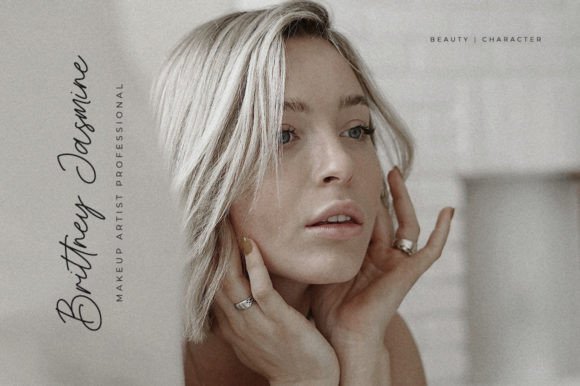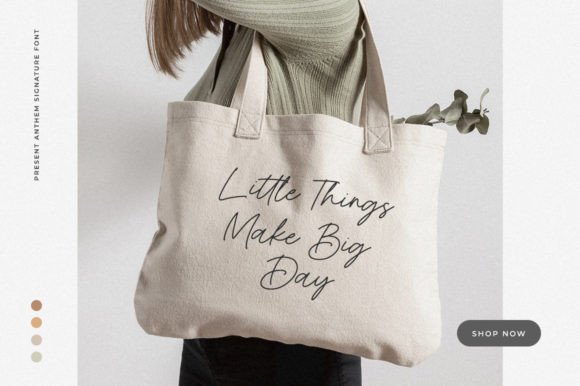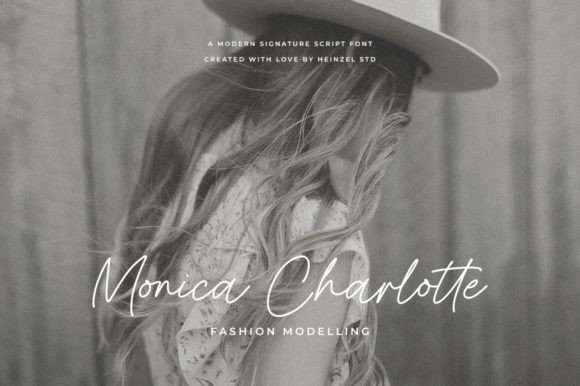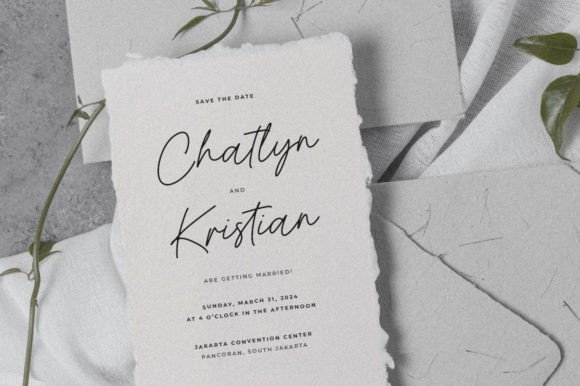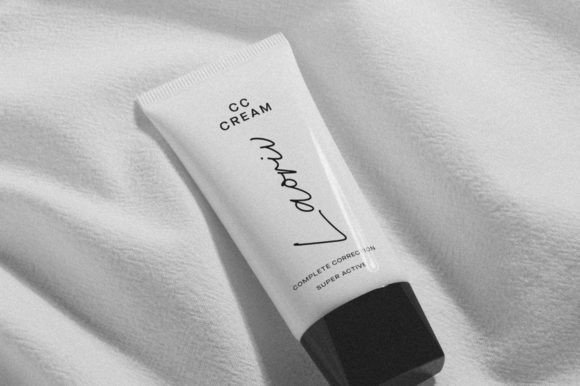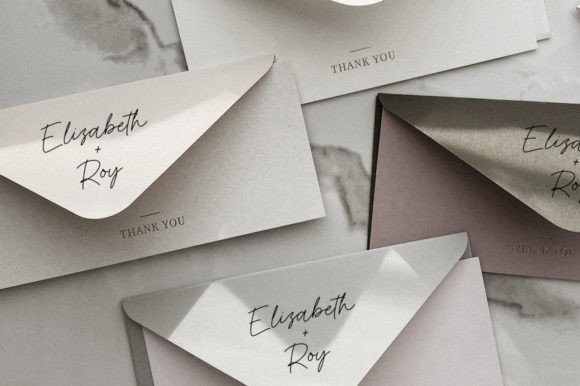
Introduction to Present Anthem Font
Present Anthem is a modern handwritten script font, described by an elegant touch, perfect for your favorite projects.
It looks stunning on wedding invitations, thank you cards, quotes, greeting cards, logos, branding, business cards, social media posts, magazines, marketing materials, and every other design that needs a handwritten touch Fall in love with its incredibly distinct and timeless style and use it to create spectacular designs.